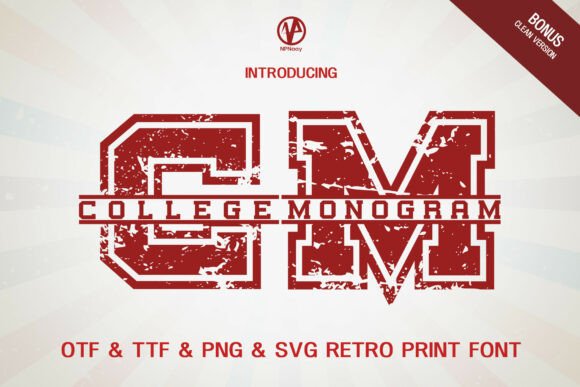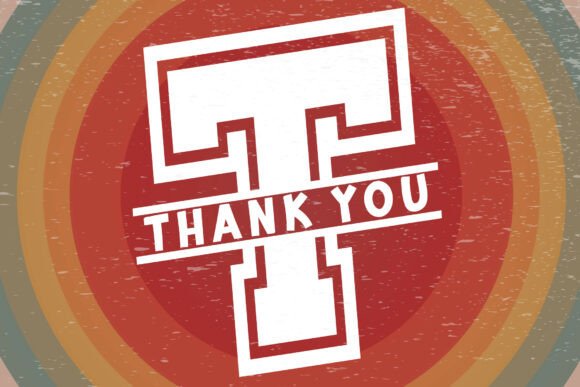
College Monogram is a vintage and grunge-distressed display font that will brighten up each of your designs. Add it confidently to your projects, and you will love the results.
College Monogram Font